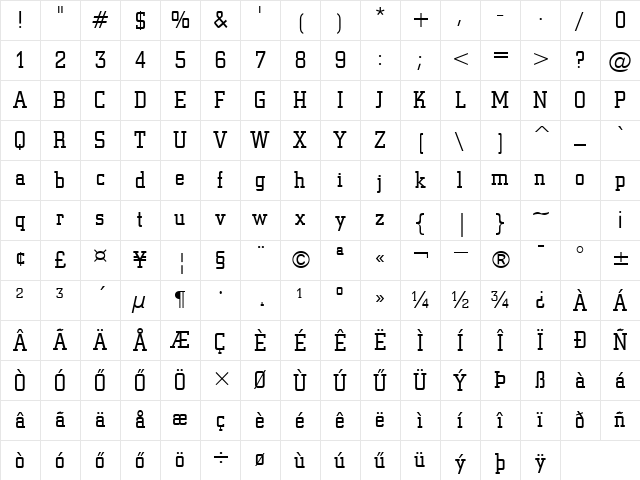
H_SquareSlab 711 BT Light Free Font
H_SquareSlab 711 BT Light
H_SquareSlab 711 BT Family
Design Context for H_SquareSlab 711 BT
H_SquareSlab 711 BT features prominent, blocky serifs that give it a confident, grounded presence - equally at home in editorial settings and bold branding work. Its slender proportions lend an understated elegance to any composition.
Pro Tip: Use H_SquareSlab 711 BT for headlines and subheadings where its slab serifs can make an impression. It also holds up well in mid-size body copy thanks to its sturdy construction.